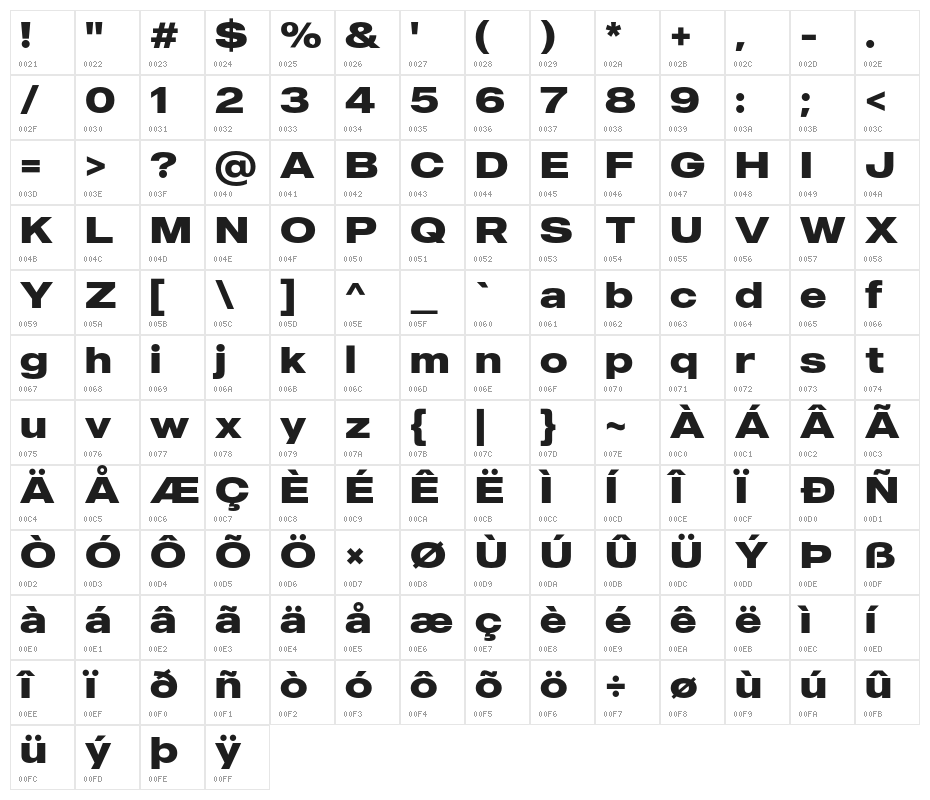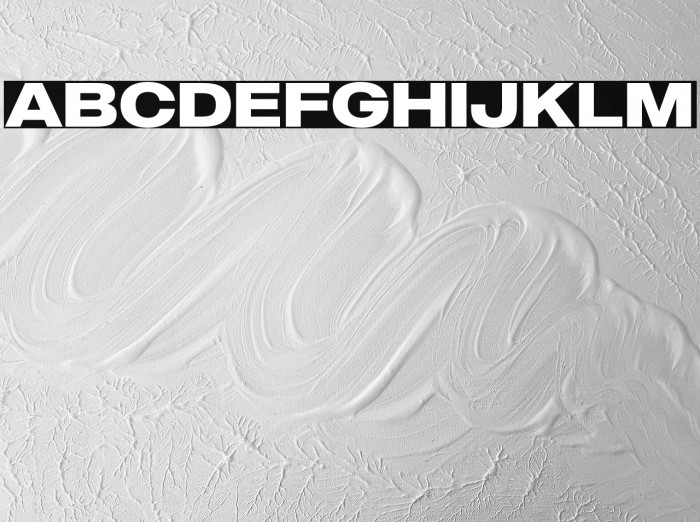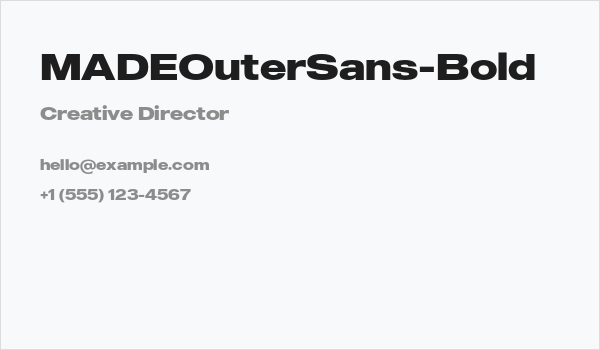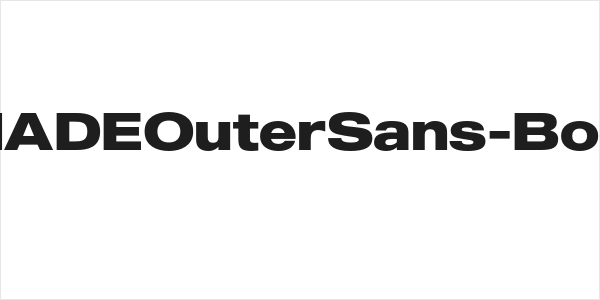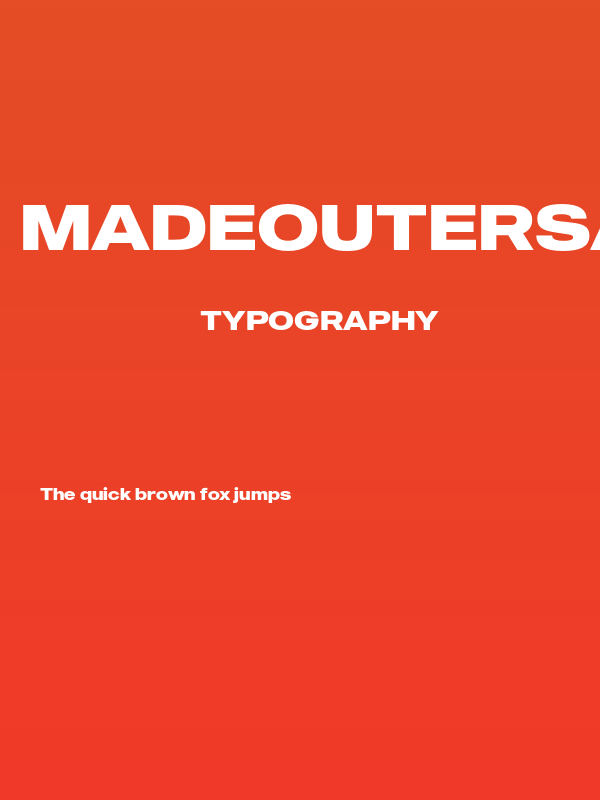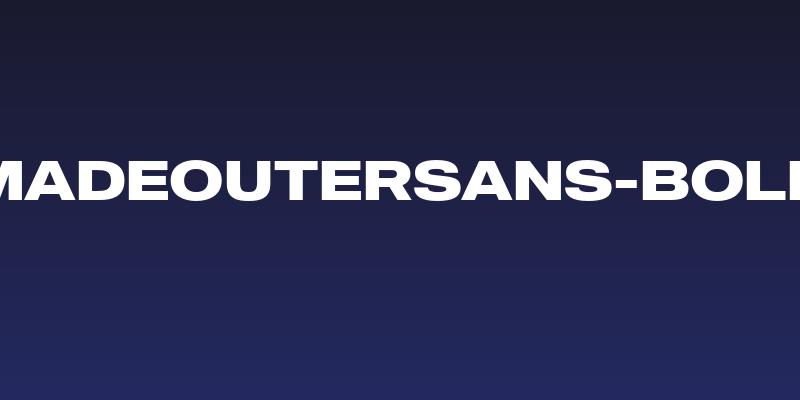
MADEOuterSans-Bold Font
MADEOuterSans-Bold Description
This font exhibits a bold and modern sans-serif style, characterized by its clean and geometric letterforms. The uppercase and lowercase letters maintain a consistent weight, providing a strong visual impact. The numerals are equally bold, ensuring readability and uniformity across different uses. Special characters are designed with the same boldness, making them stand out effectively. The overall design is sleek and contemporary, suitable for a wide range of applications where clarity and impact are essential.
| Proposed Projects | Ideal for branding, advertising, headlines, and digital interfaces where a strong and modern appearance is desired. |